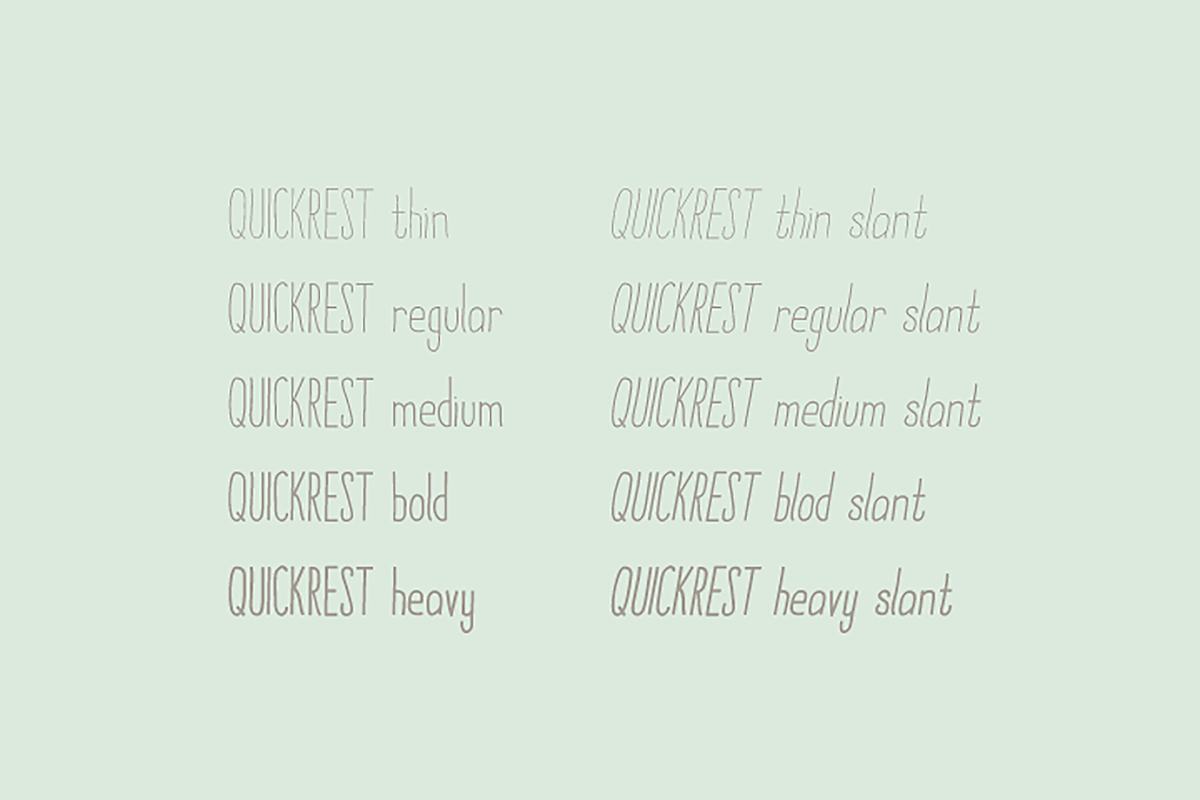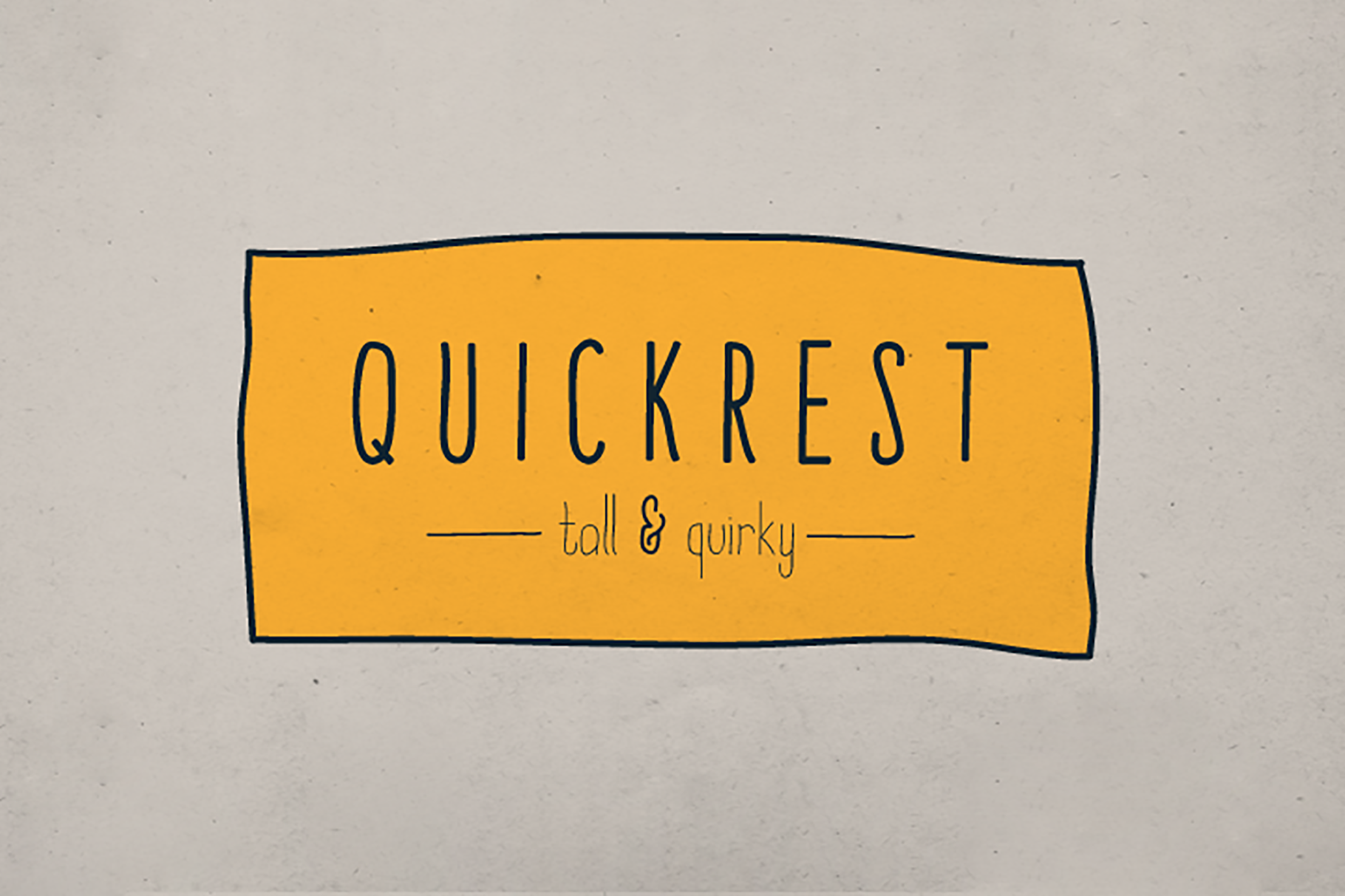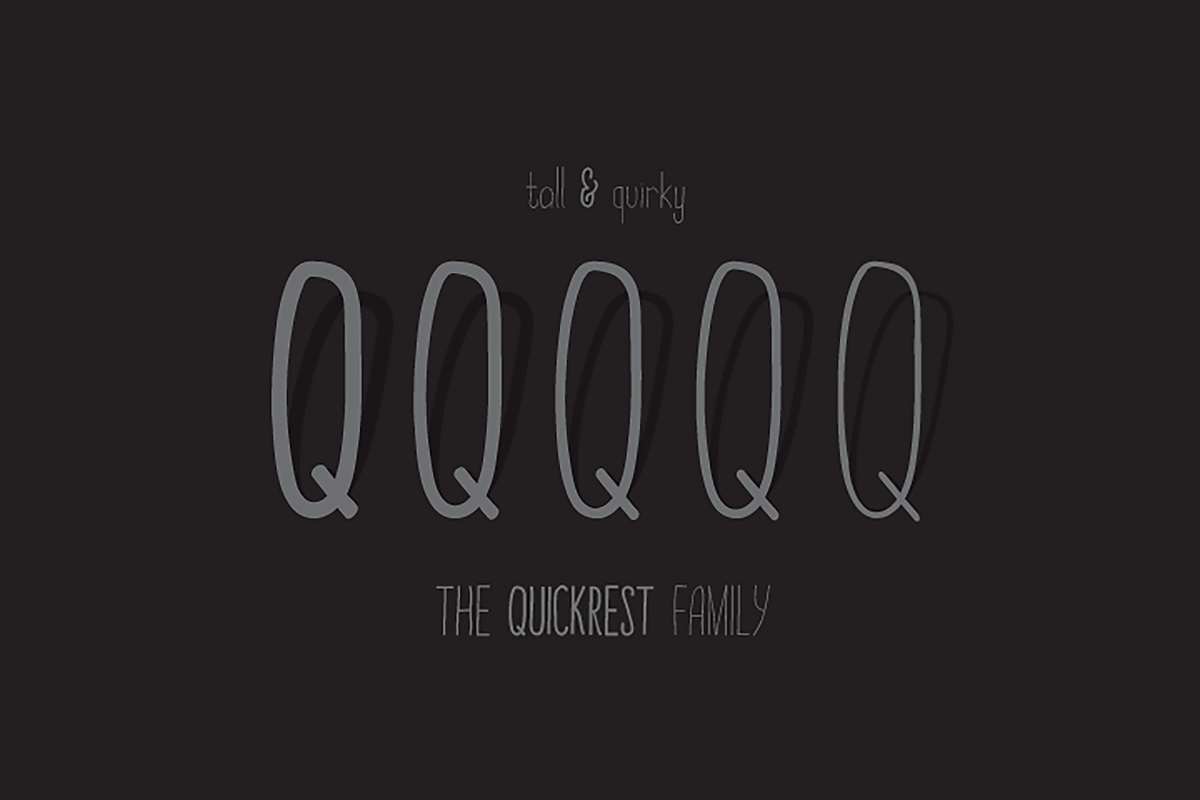
Quickrest Family – Hand Drawn Font
Introducing Quickrest font family by We are colt.
Quickrest is a family of 10 fonts features five weights and five slanted versions.
A tall and quirky type with slight irregularities, Quickrest does not do conformity – each character is entirely individual.
It is a fun looking family with its heart in the handmade, vintage, crafty scene. This font will add a really unique and bespoke finish to your project.
This set includes uppercase and lowercase letters, numerals, a range of punctuation and ligatures.
Features 10 fonts: Thin, thin slant, regular, regular slant, medium, medium slant, bold, bold slant, heavy and heavy slant.